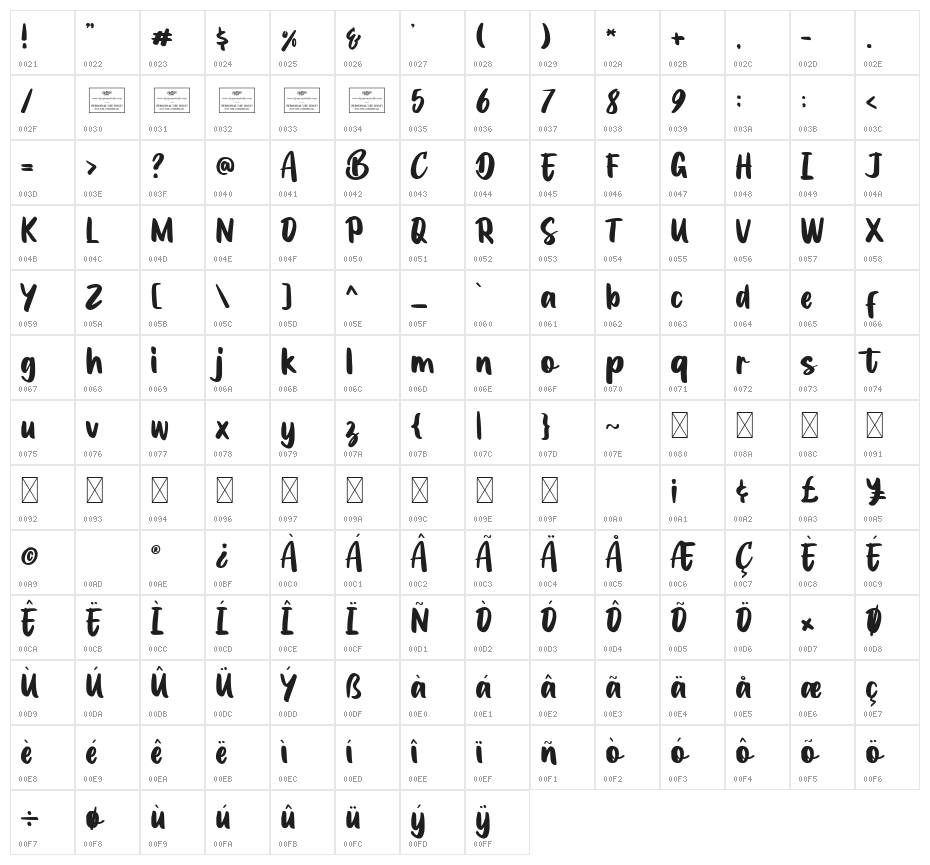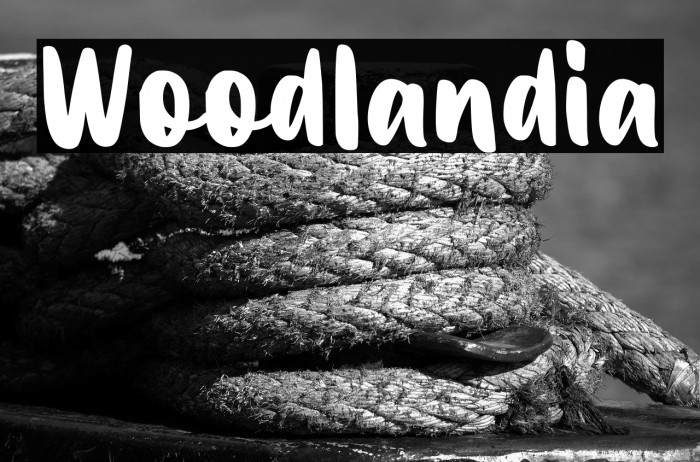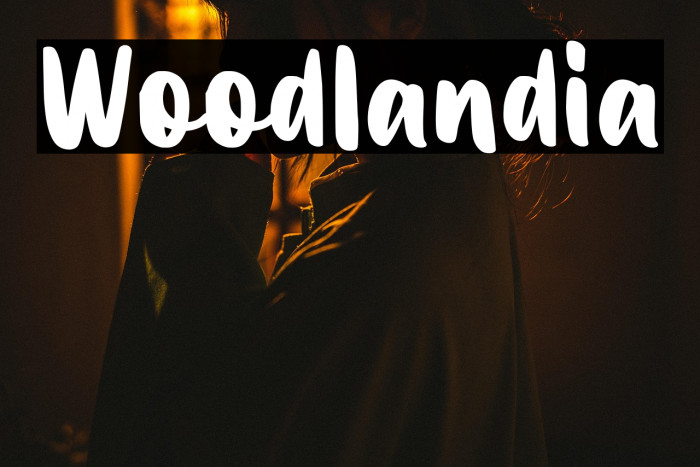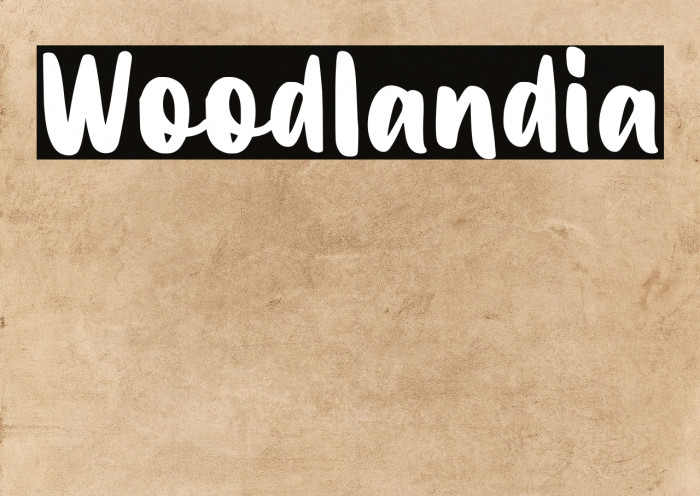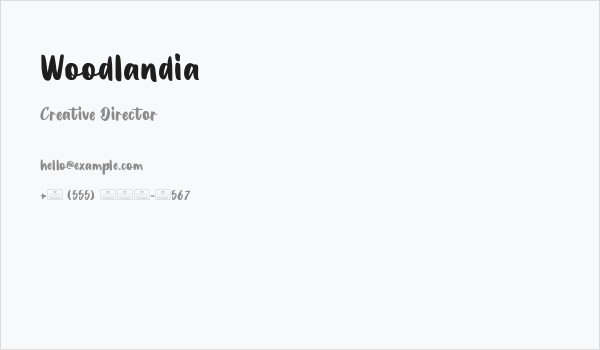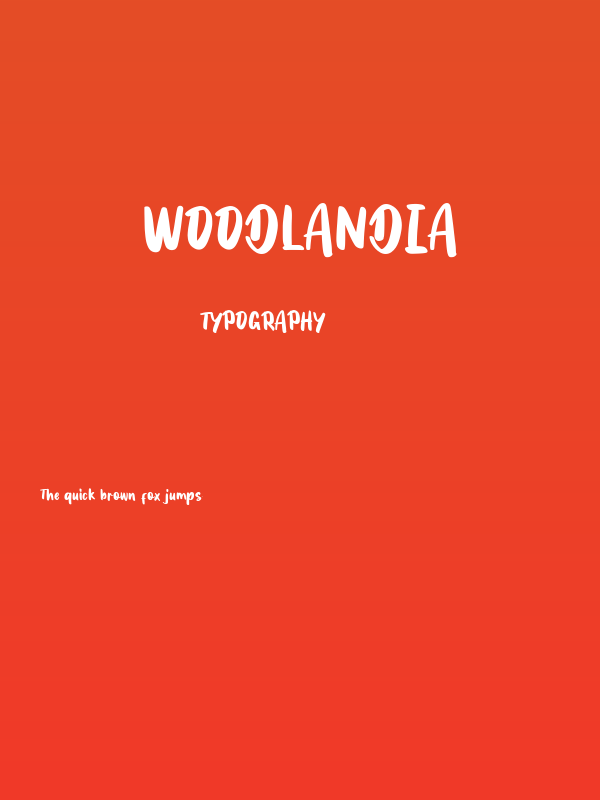
Woodlandia Font
Woodlandia Description
This font features a bold, handwritten style with a playful and energetic feel. The letters are thick and rounded, giving them a friendly and approachable appearance. The strokes are smooth and consistent, with a slight slant that adds to the casual, informal vibe. The uppercase and lowercase letters maintain a cohesive look, while the numerals and special characters complement the overall style. This font is ideal for projects that require a personal touch, such as invitations, greeting cards, or branding for creative businesses.
| Overall Style | Playful, Casual |
| Proposed Projects | Ideal for invitations, greeting cards, branding for creative businesses, and social media graphics. |